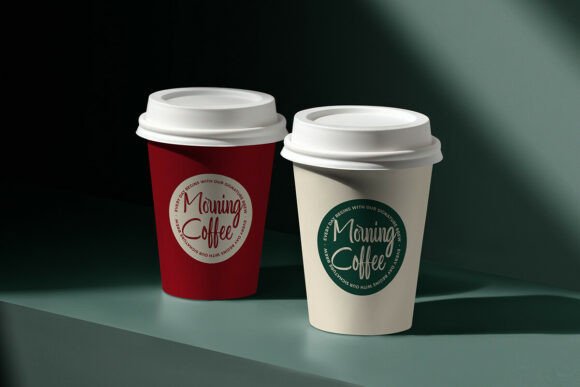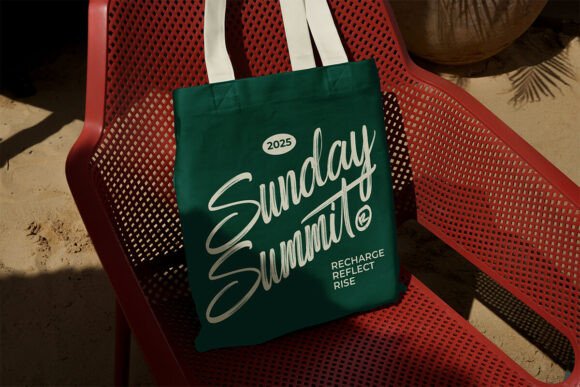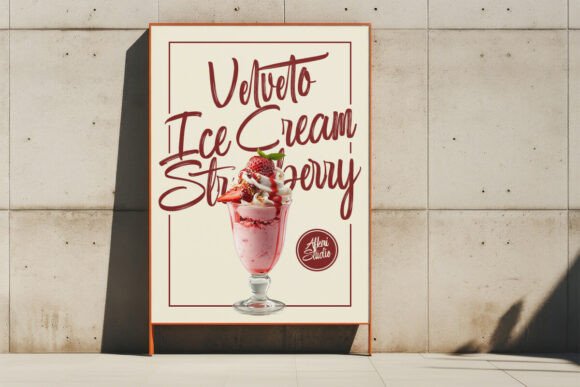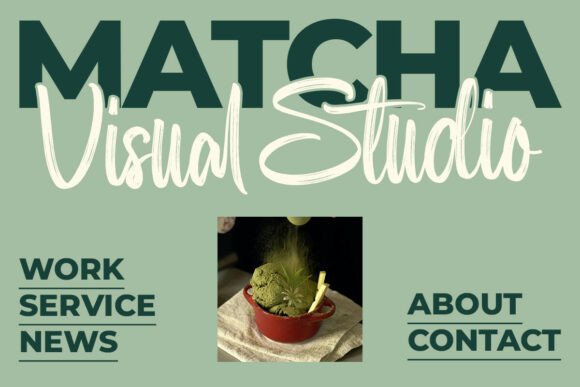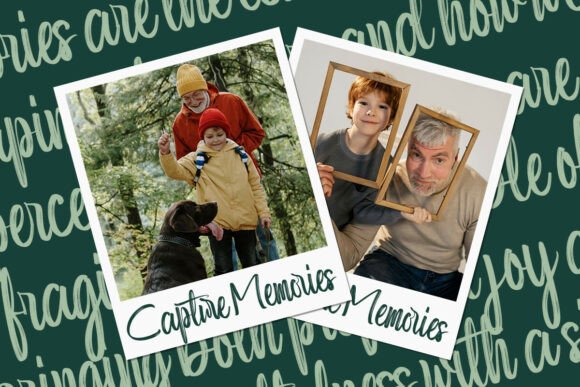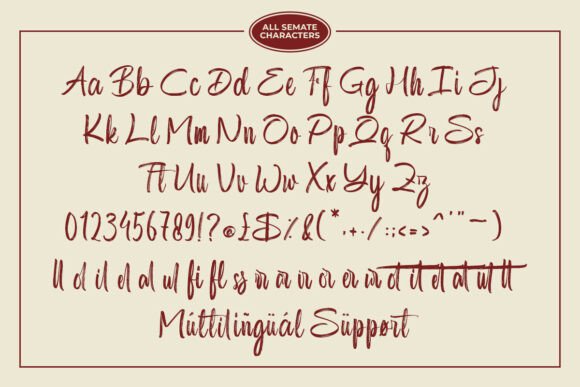
Introduction to Semate Font
Semate – Handwritten Brush Font is full of raw energy, expressive strokes, and an authentic handmade feel.
Designed to mimic real brush pen lettering, Semate delivers natural flow, bold movement, and a casual artistic vibe that makes your message feel personal and powerful .
Key Features of Semate Font
Why Choose Semate Font?